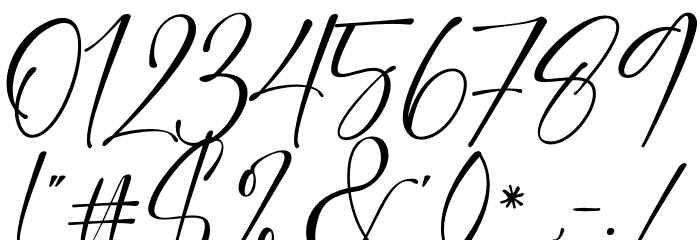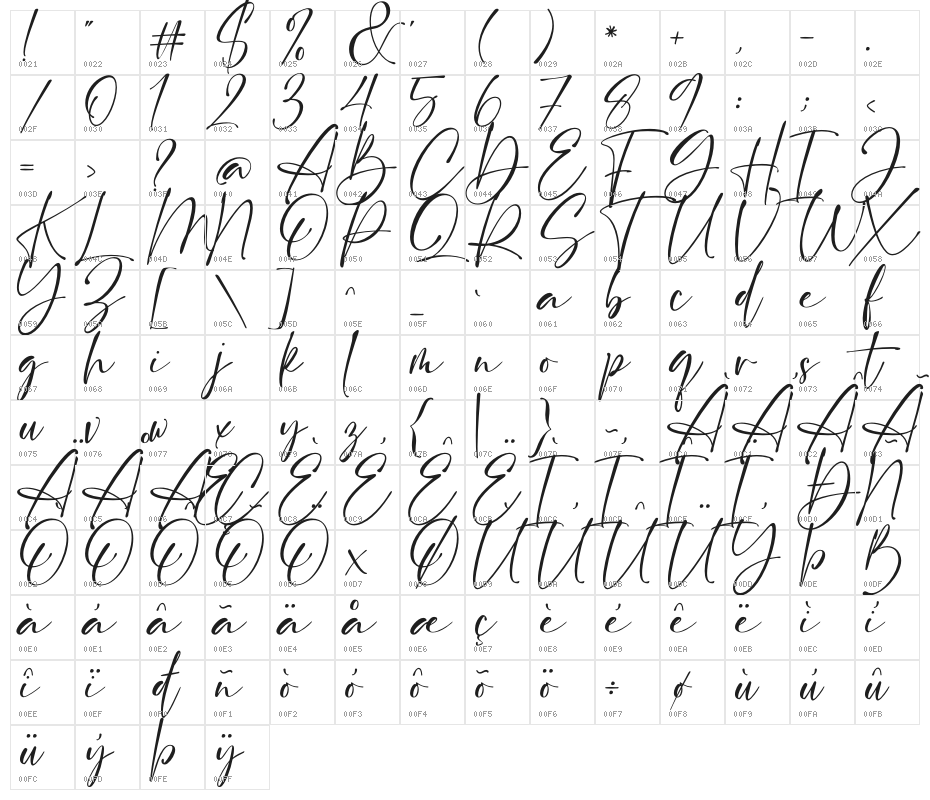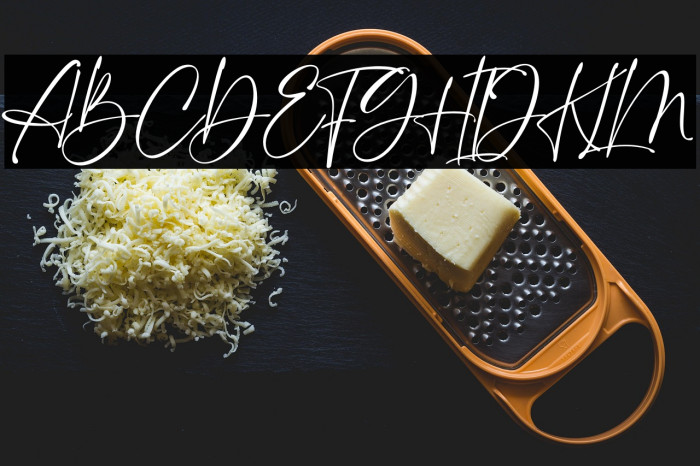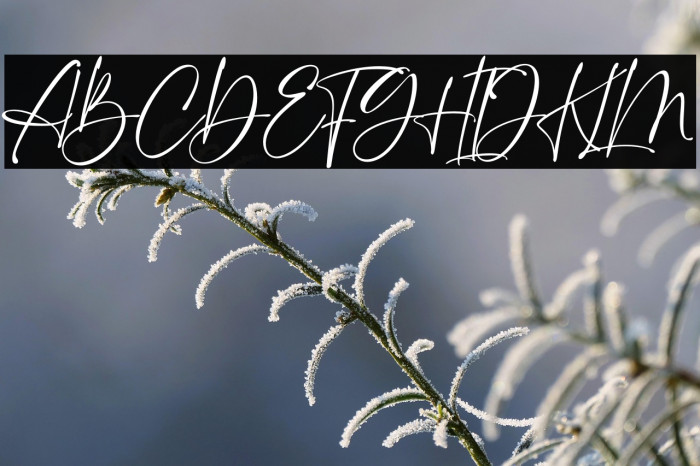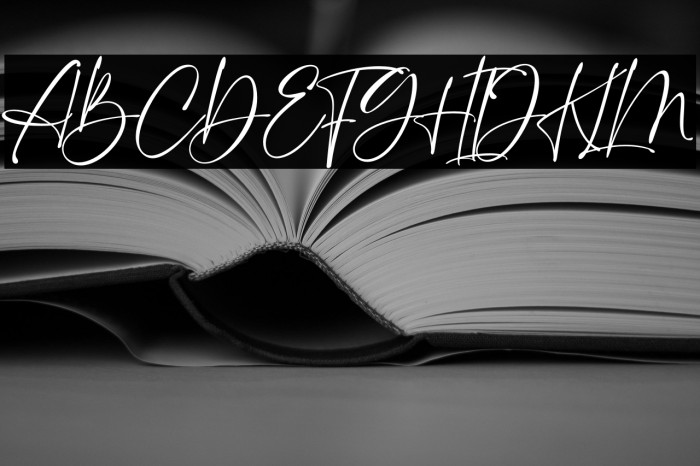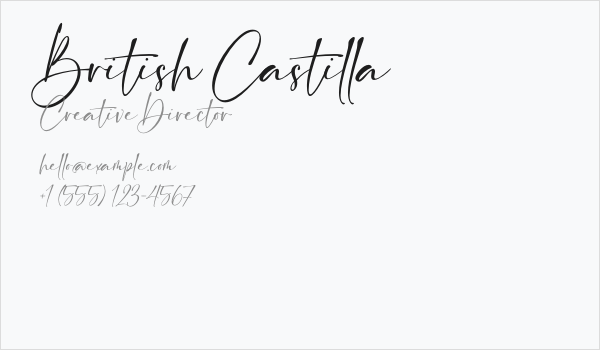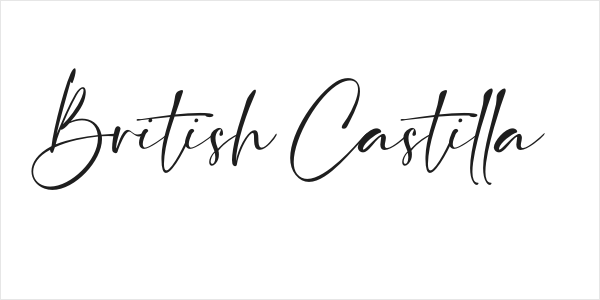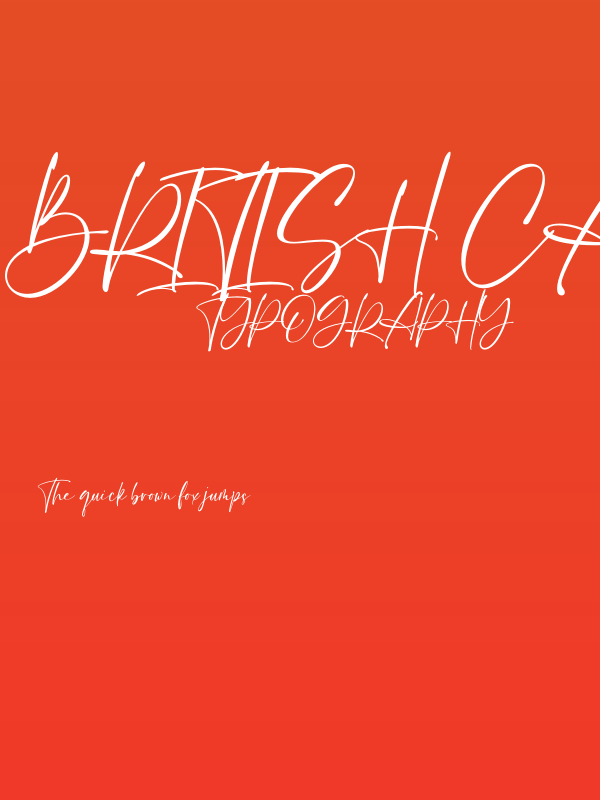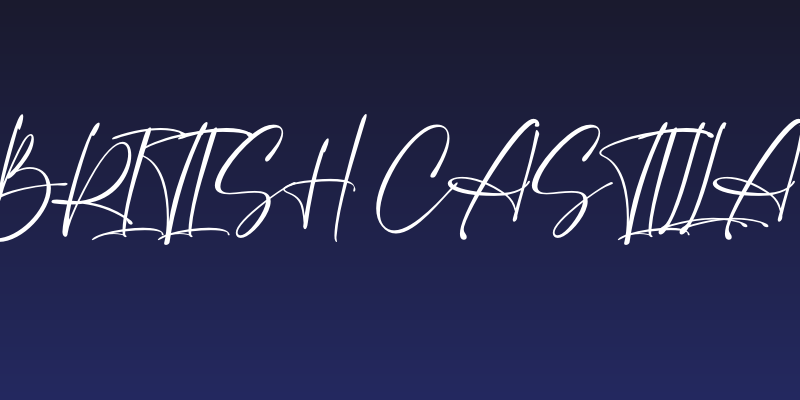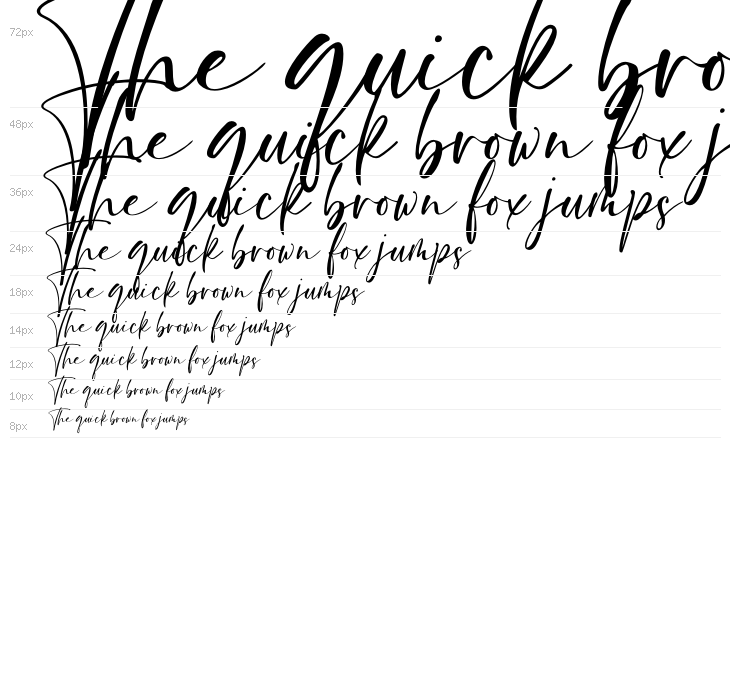
British Castilla Font
British Castilla Description
This font features a dynamic and expressive script style, characterized by its fluid and cursive letterforms. The strokes are smooth and connected, giving it a handwritten appearance. The uppercase letters are bold and slightly larger, while the lowercase letters maintain a consistent flow with elegant loops and curves. The numbers and special characters follow the same cursive style, ensuring uniformity across all glyphs. The overall design is both artistic and legible, making it suitable for creative projects that require a personal touch.
| Proposed Projects | Ideal for wedding invitations, greeting cards, branding, and social media graphics. |